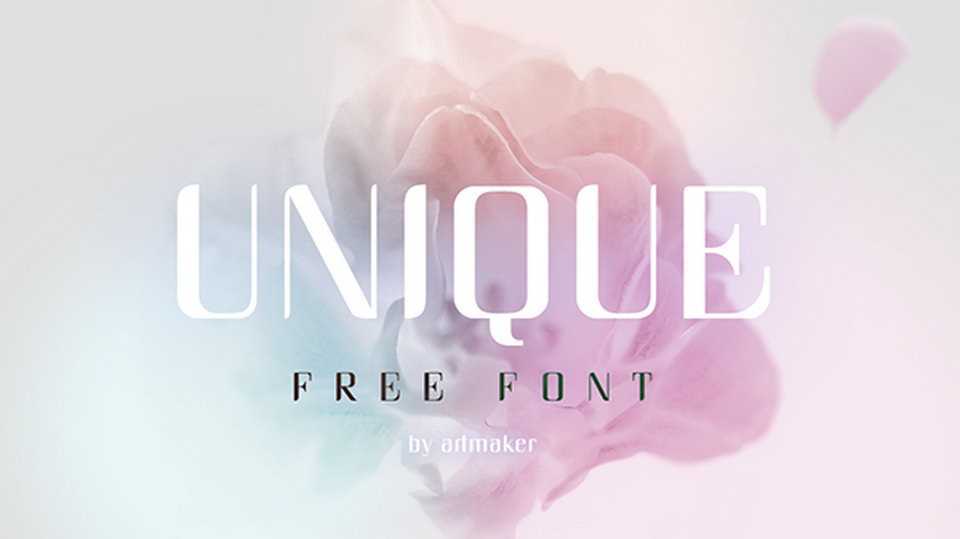
Download Unique font, a beautiful display hybrid typeface. A little bit flashy, retro, but still contemporary font, designed especially for your greatest headings & logotypes.
Designer: Anna Pocius